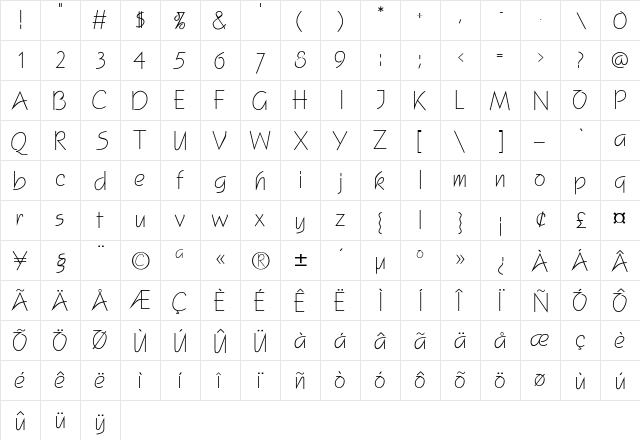
FeatherLight Regular
Design Context for FeatherLight Typeface
FeatherLight is a composed and adaptable typeface that performs quietly and consistently across a wide range of design contexts. Its slender proportions lend an understated elegance to any composition.